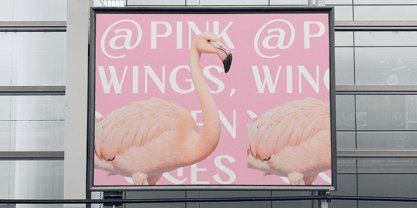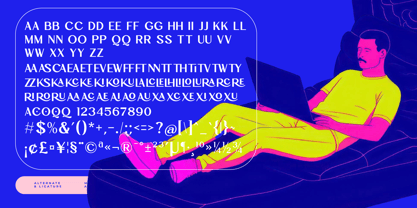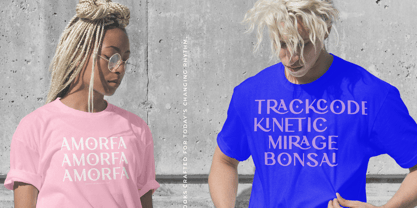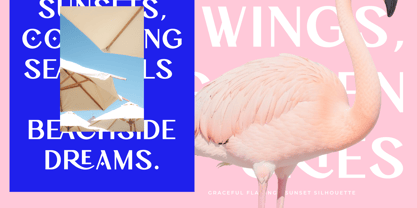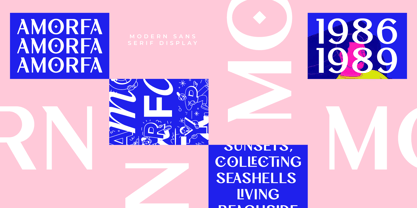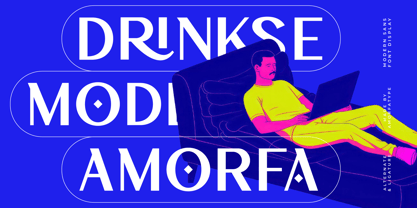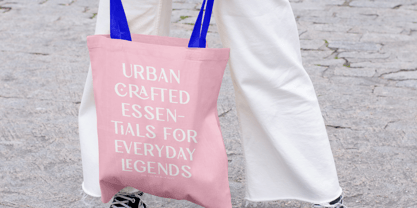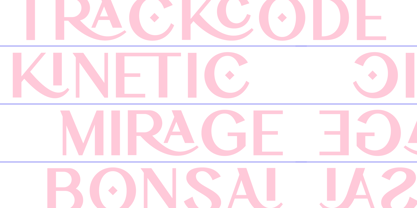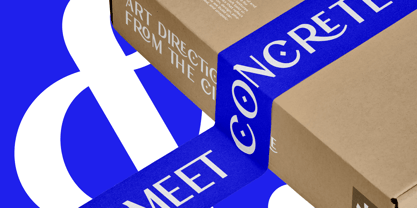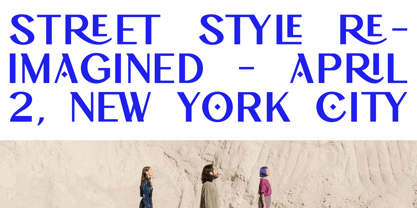
Drinkse
by Amorfa Type
The Drinkse Font Family was designed by Shiddiq Roihan and published by Amorfa Type. Drinkse contains 2 styles and family package options. More about this family
Drinkse – A Modern Sans Display Font by Amorfatype
Drinkse is a clean and bold modern sans serif display font that brings a fresh, confident character to your typography. With its geometric shapes, balanced proportions, and smooth terminals, Drinkse offers a contemporary look that’s perfect for standout headlines, branding, web design, and editorial use.
Designed to make an impact, Drinkse excels in both large and medium-sized text — delivering excellent readability with a modern edge. Its minimalist yet stylish design makes it ideal for creative professionals looking for a strong and versatile sans serif typeface.